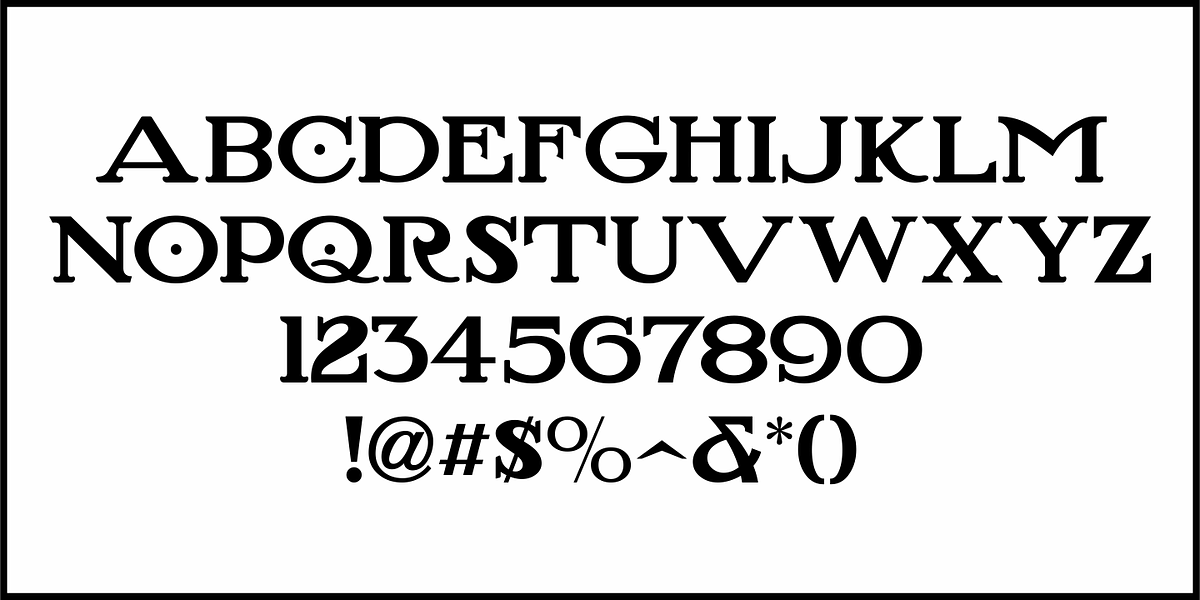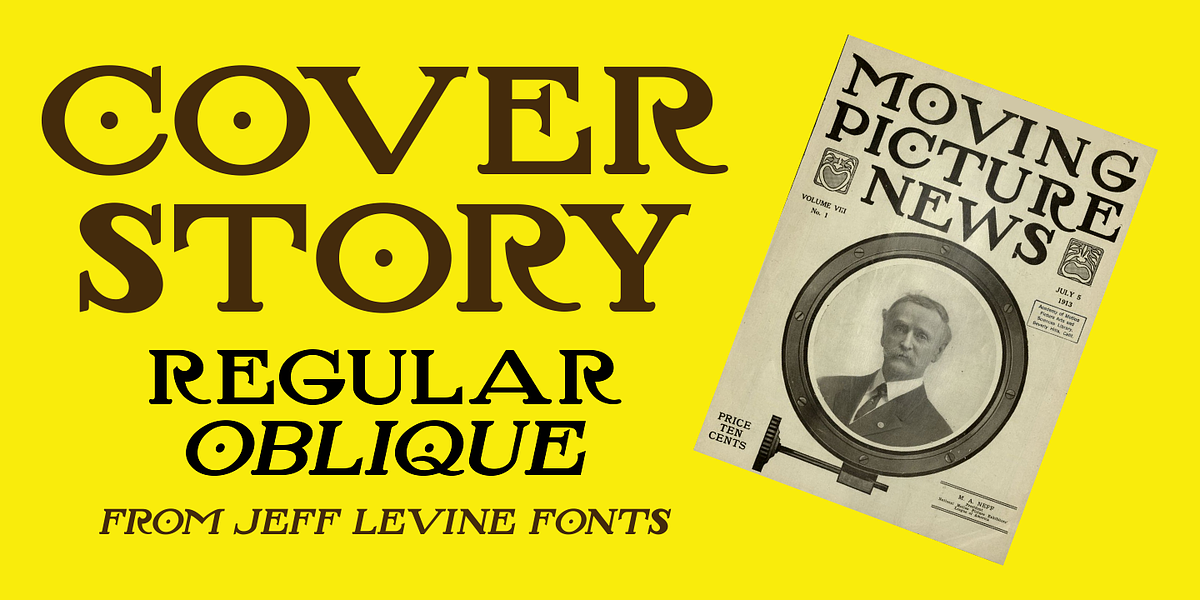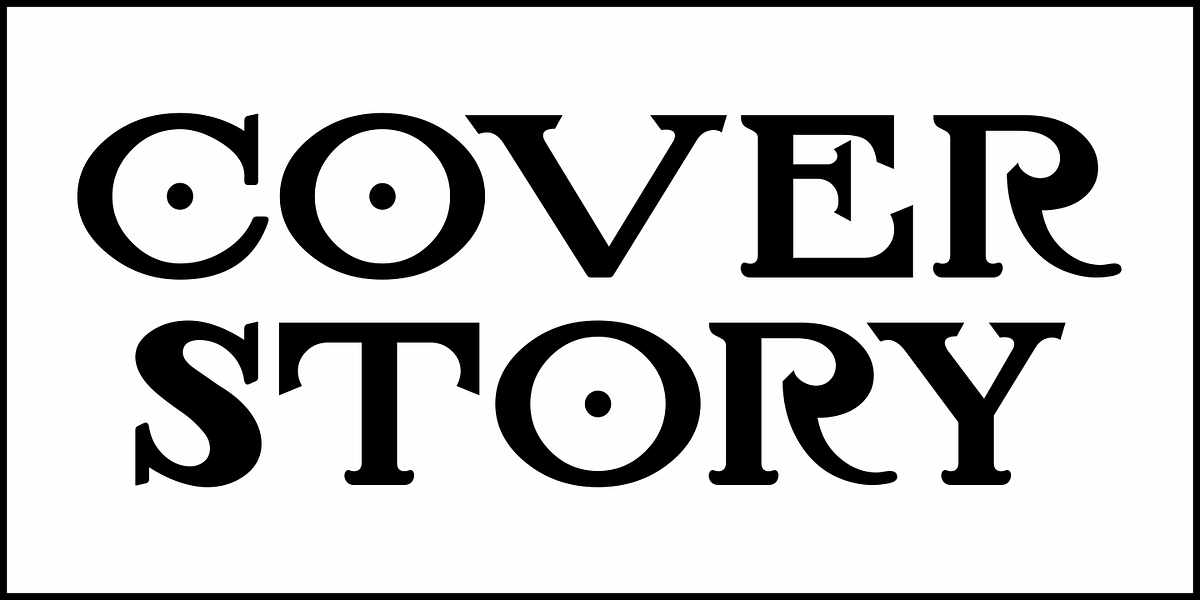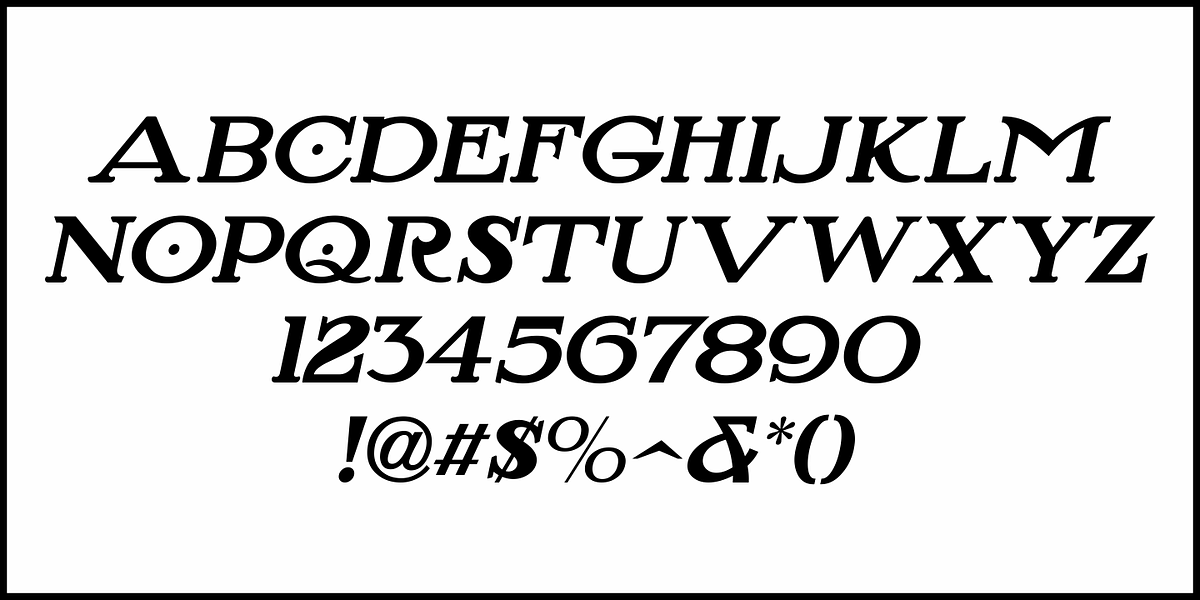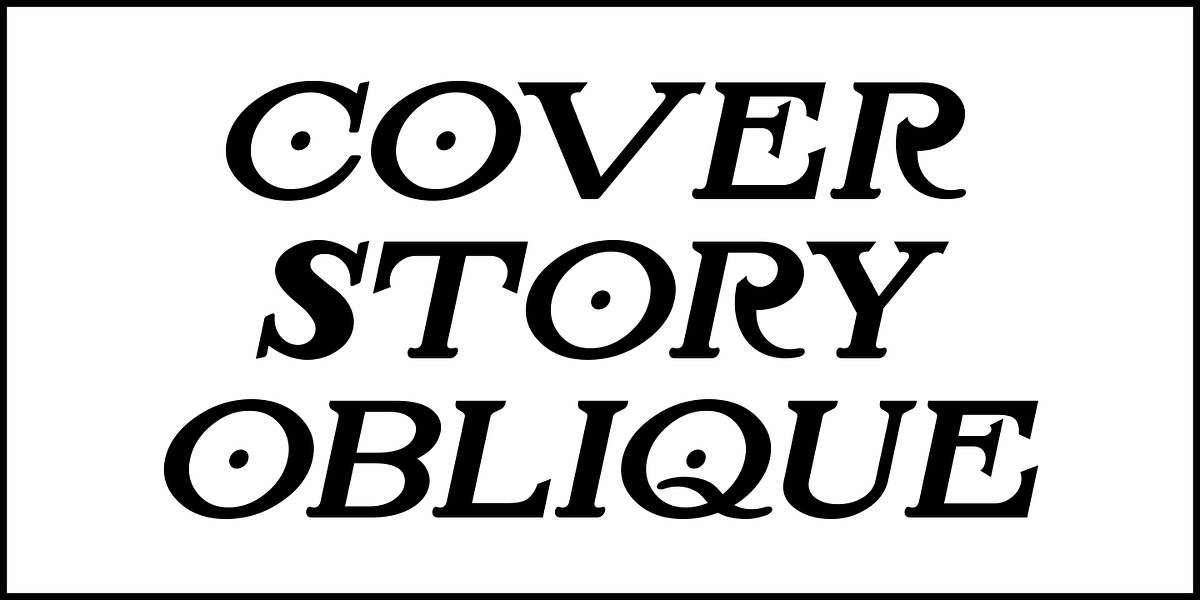
Cover Story JNL
The title block for the cover of the July 5, 1913 issue of Moving Picture News was hand lettered in an ornate serif type design.
This is now available as Cover Story JNL, in both regular and oblique versions.